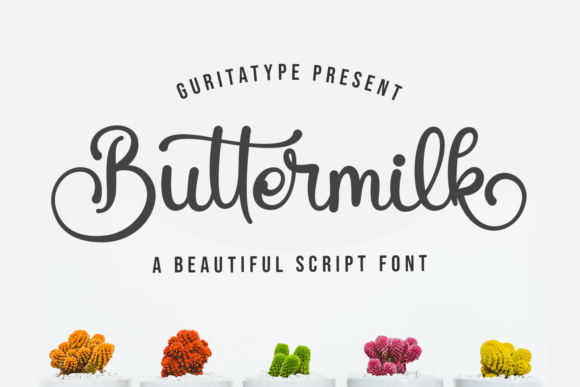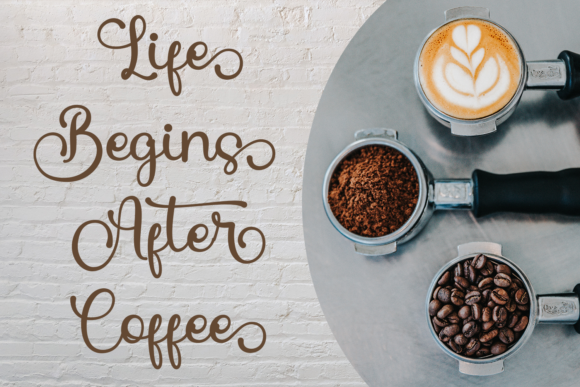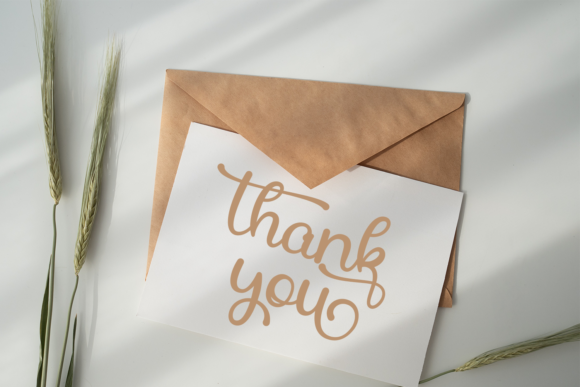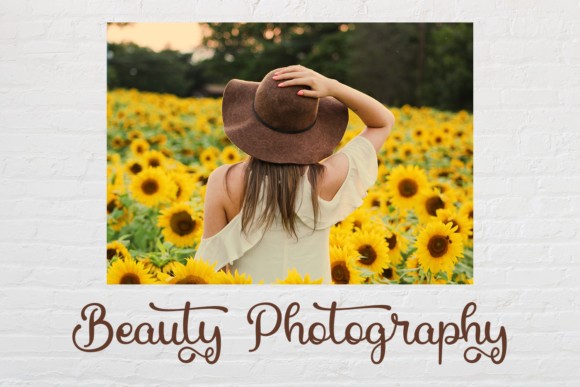
Introducing “Buttermilk,” a smooth and elegant handwritten font that exudes charm and character. With its graceful strokes and delicate curves, this font adds a touch of sophistication to a wide range of design projects.
The “Buttermilk” font showcases a unique blend of elegance and playfulness. Its smooth lines and flowing letterforms create a harmonious and pleasing aesthetic that can elevate your designs to new heights. Whether you’re working on branding materials, logos, invitations, packaging, or any other creative project, this font will bring a touch of elegance and style that captivates the eye.
One of the standout features of “Buttermilk” is its PUA encoding, which grants easy access to a variety of glyphs and swashes. This means you can effortlessly incorporate additional design elements, alternate characters, and decorative flourishes into your typography. With the freedom to customize and embellish your text, you can create unique and personalized designs that truly stand out.
The versatility of “Buttermilk” allows it to be used in various design contexts. It pairs beautifully with both digital and print applications, making it suitable for a wide range of projects. Whether you’re designing wedding stationery, elegant logos, stylish packaging, sophisticated quotes, or any other creative endeavor, this font will bring a touch of class and refinement to your work.
By using “Buttermilk,” you can create stunning designs that exude elegance and personality. The font’s graceful appearance lends itself well to projects that require a sophisticated and refined touch. It is especially well-suited for designs related to weddings, luxury brands, fashion, beauty, lifestyle, and more. With its smooth and elegant nature, “Buttermilk” adds a touch of class and character to any creative project.
In summary, “Buttermilk” is a smooth and elegant handwritten font that adds a touch of charm and character to your designs. With its PUA encoding, you have easy access to a wide range of glyphs and swashes, allowing for customization and personalization. Whether you’re working on branding, logos, invitations, or any other creative project, this font will bring a touch of elegance and style that sets your designs apart. Embrace the versatility of “Buttermilk” and let it enhance your most creative ideas, resulting in stunning and captivating designs.